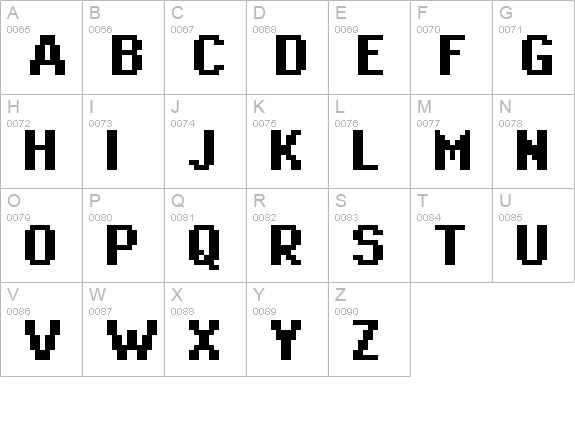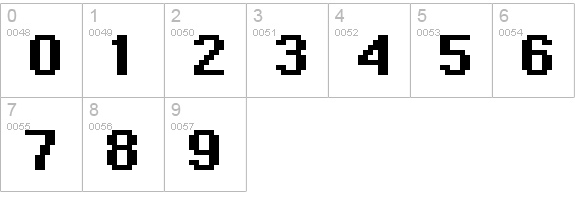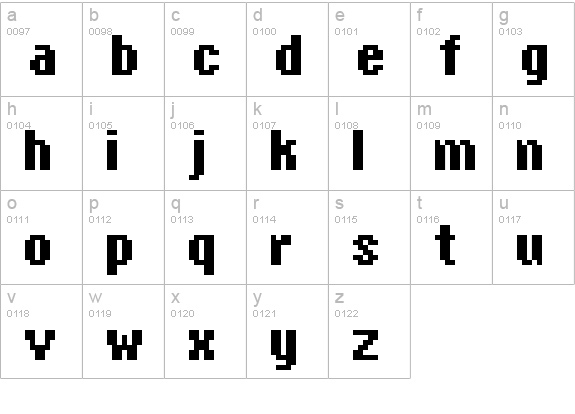
Introducing the stunning 08_65 font - a modern and versatile typeface that is sure to make your designs stand out. With its sleek lines and contemporary feel, this font is perfect for a wide range of projects, from branding to editorial design. The best part? You can download 08_65 font for free at FontsMarket.com. Don't miss out on the opportunity to add this beautiful font to your collection without spending a dime. Whether you're working on a website, poster, or logo, 08_65 font has got you covered with its elegant and eye-catching style. So why wait? Head over to FontsMarket.com now and get your hands on the 08_65 font for free. Elevate your designs and make a lasting impression with this exceptional typeface.